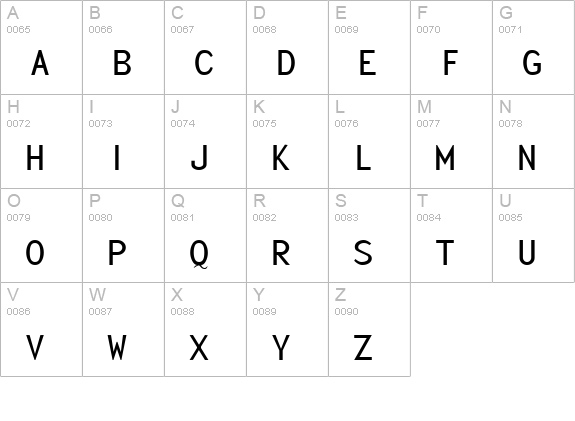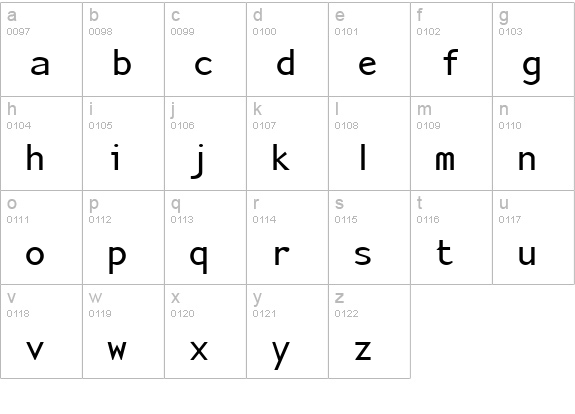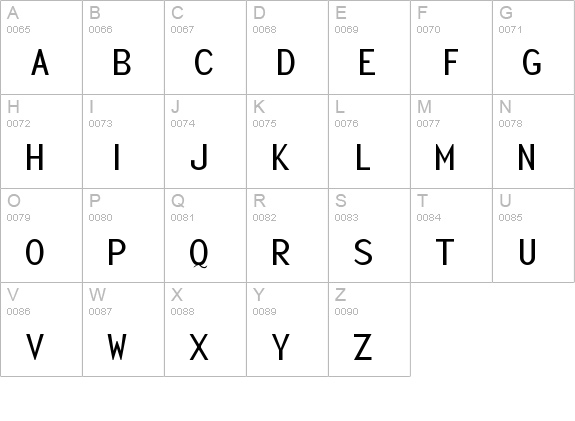
Monotony Regular Font Details
Monotony Regular is the standard, neutral variant in the Monotony typeface family \xE2\x80\x94 well suited to general body text, paragraphs, and standard typographic work.
Monotony Regular font is a versatile and modern typeface designed for various design projects. With its clean lines and sleek appearance, Monotony Regular exudes a sense of sophistication and simplicity. Whether used for branding, editorial design, or web graphics, this font adds a touch of elegance to any project. What makes Monotony Regular even more appealing is that it is available for free download at FontsMarket.com. This means that you can easily access and use this stylish font in your creations without any cost. Don't miss out on the opportunity to enhance your designs with the timeless charm of Monotony Regular font. Download it today and elevate your projects to the next level!